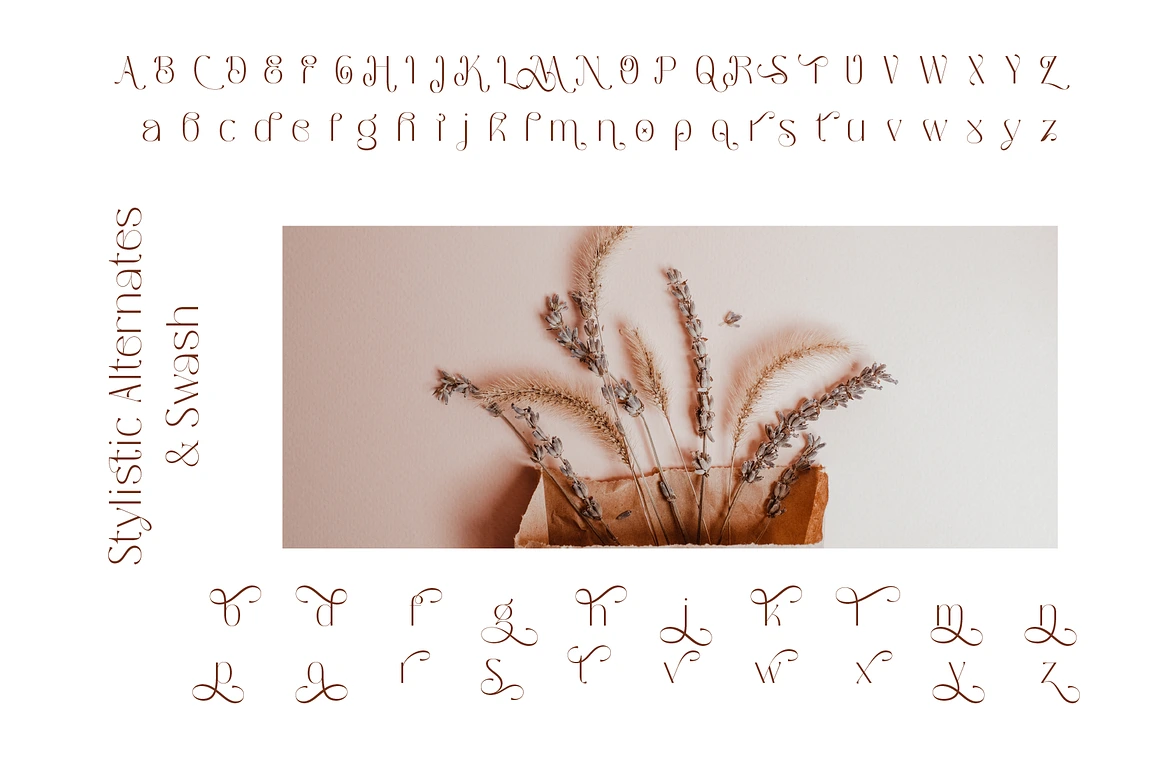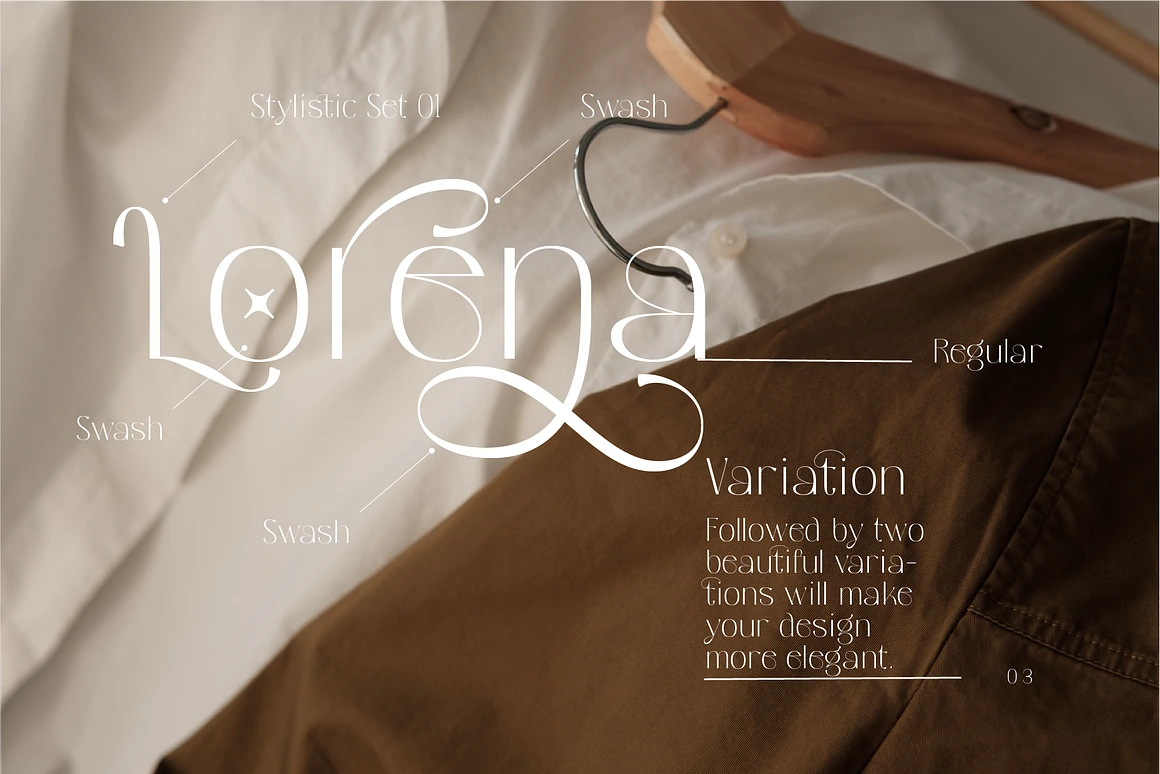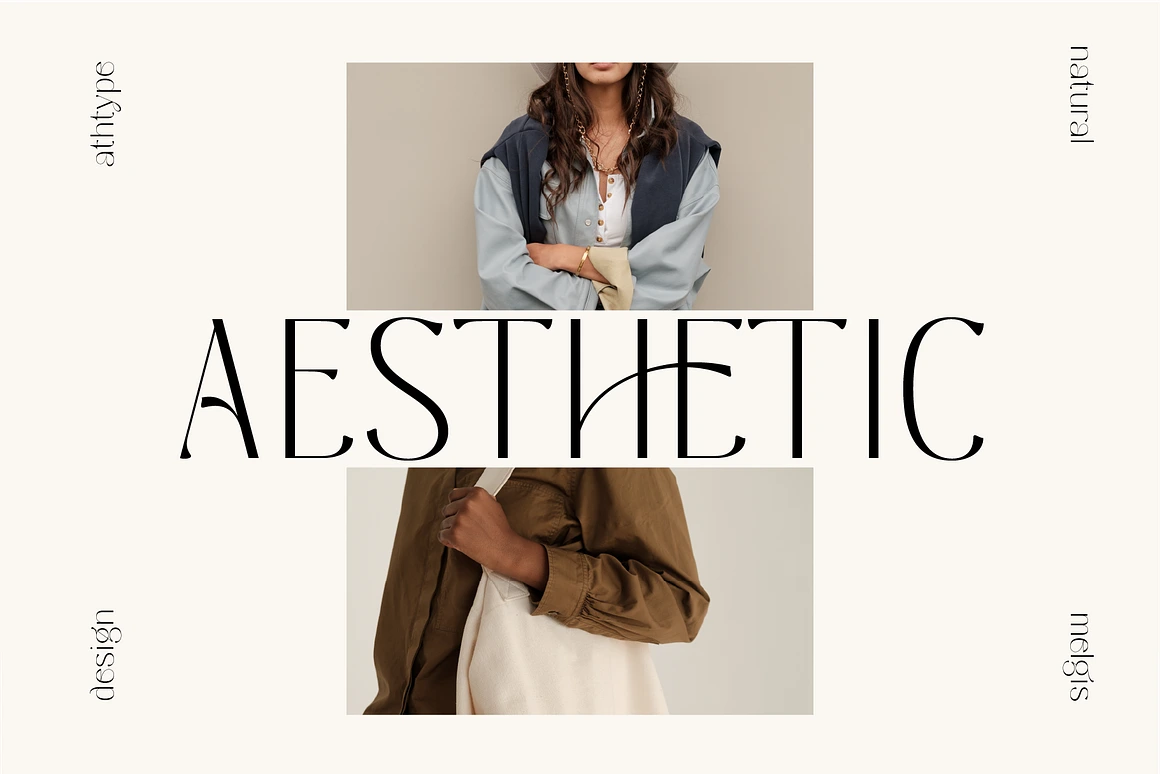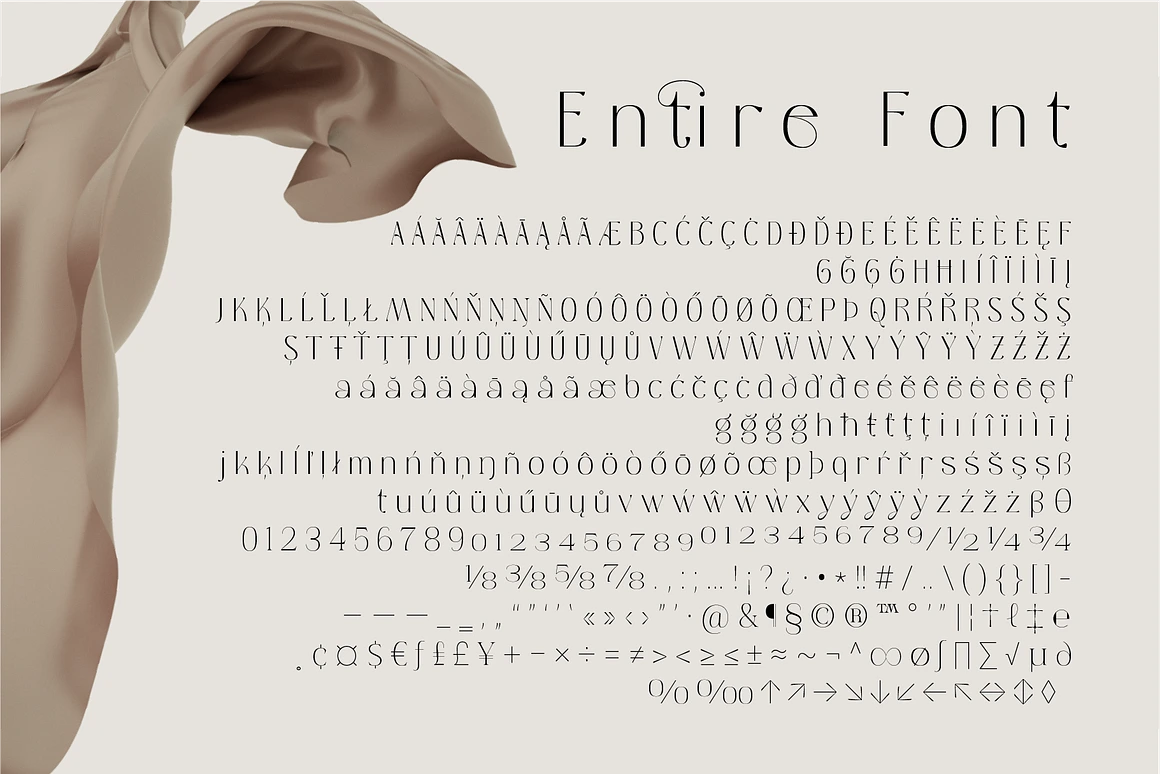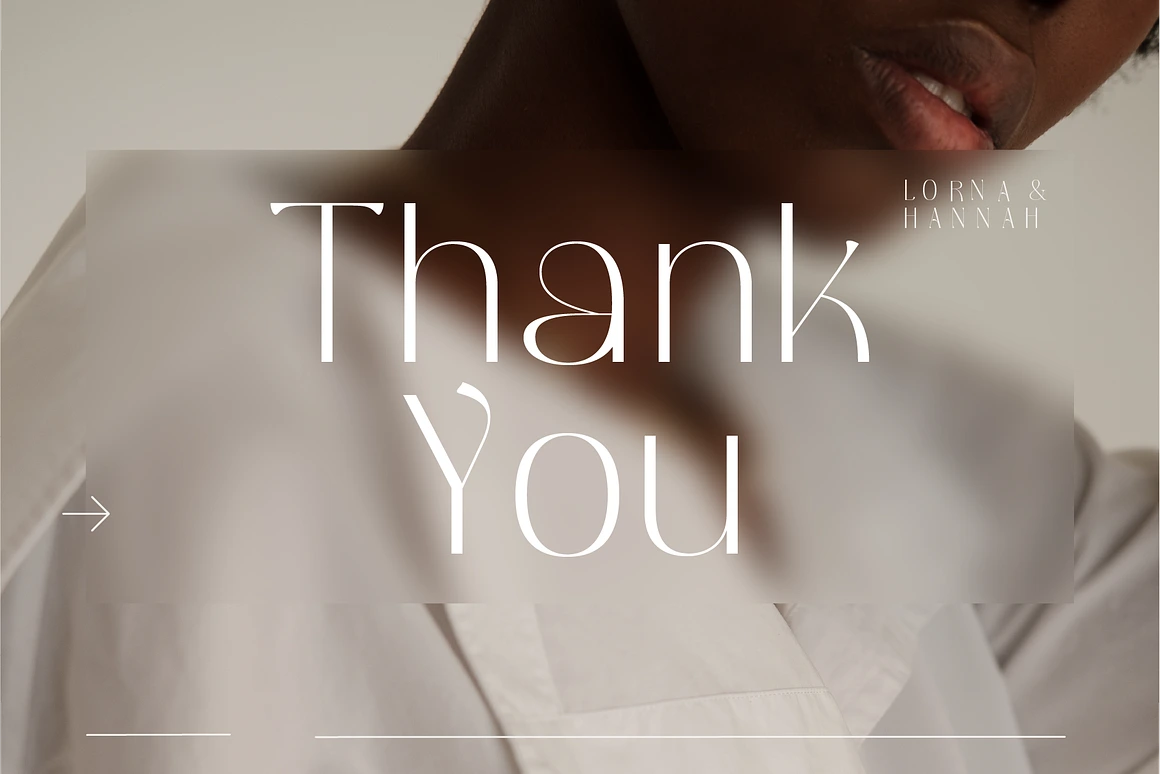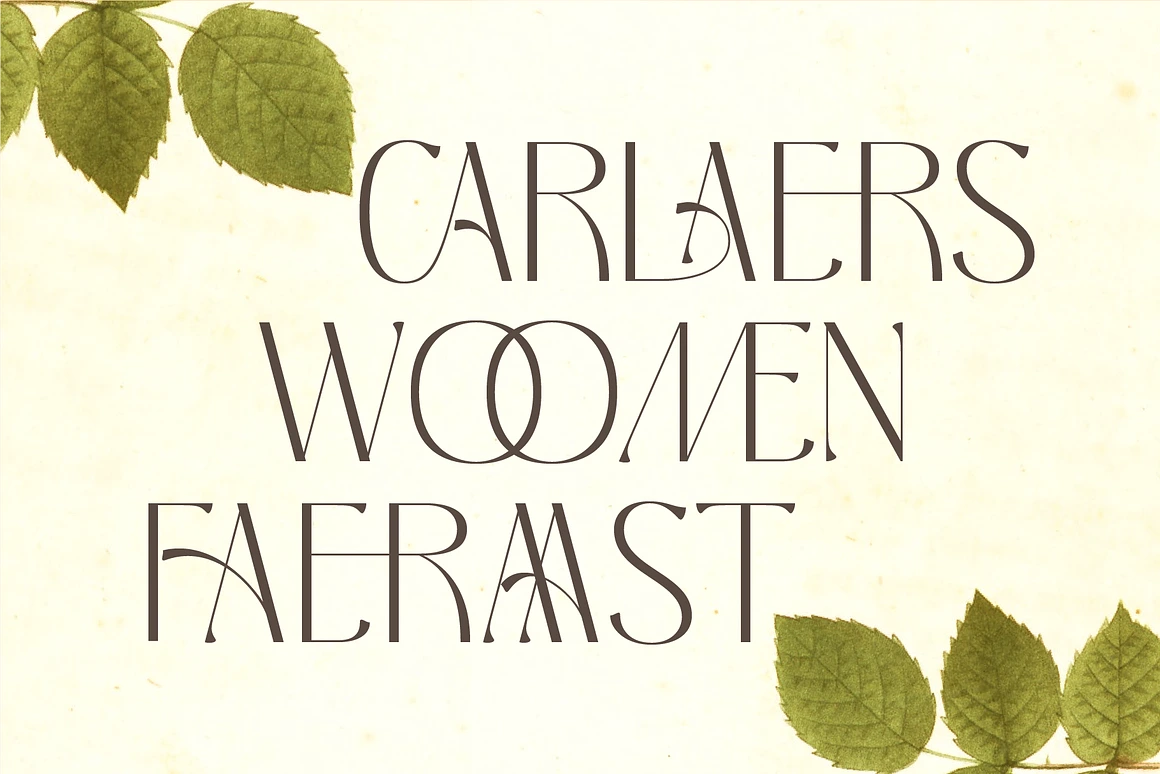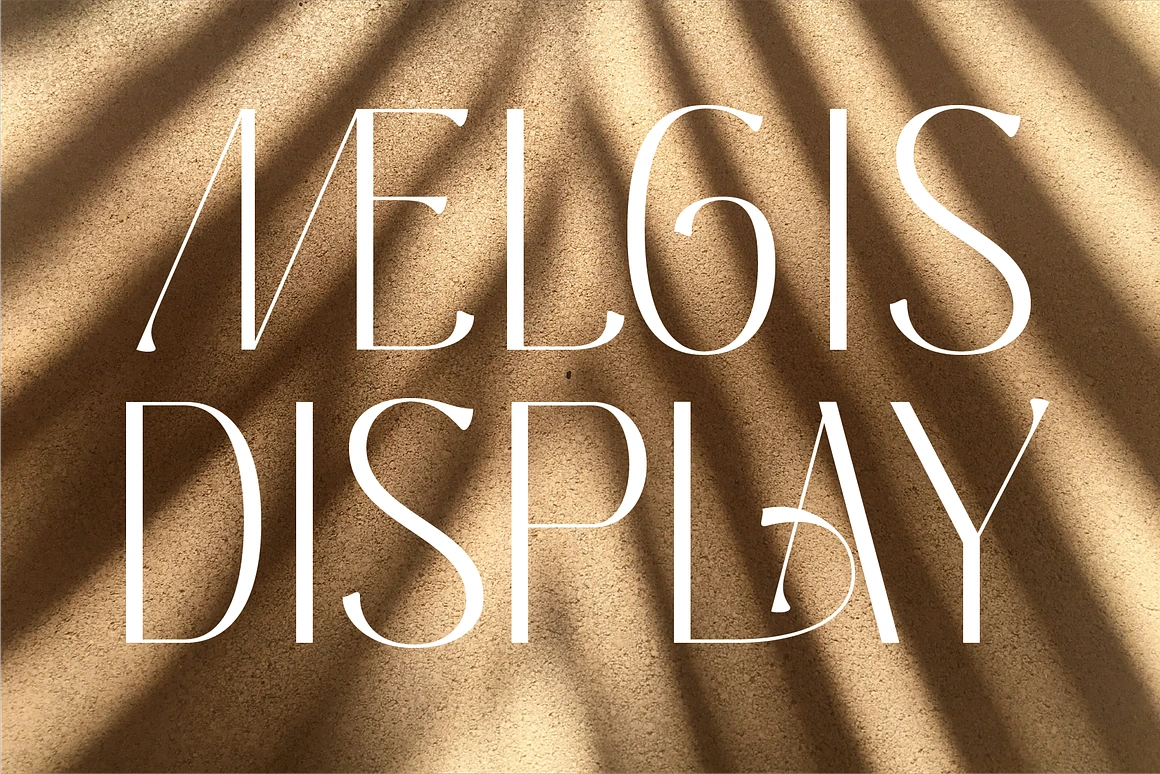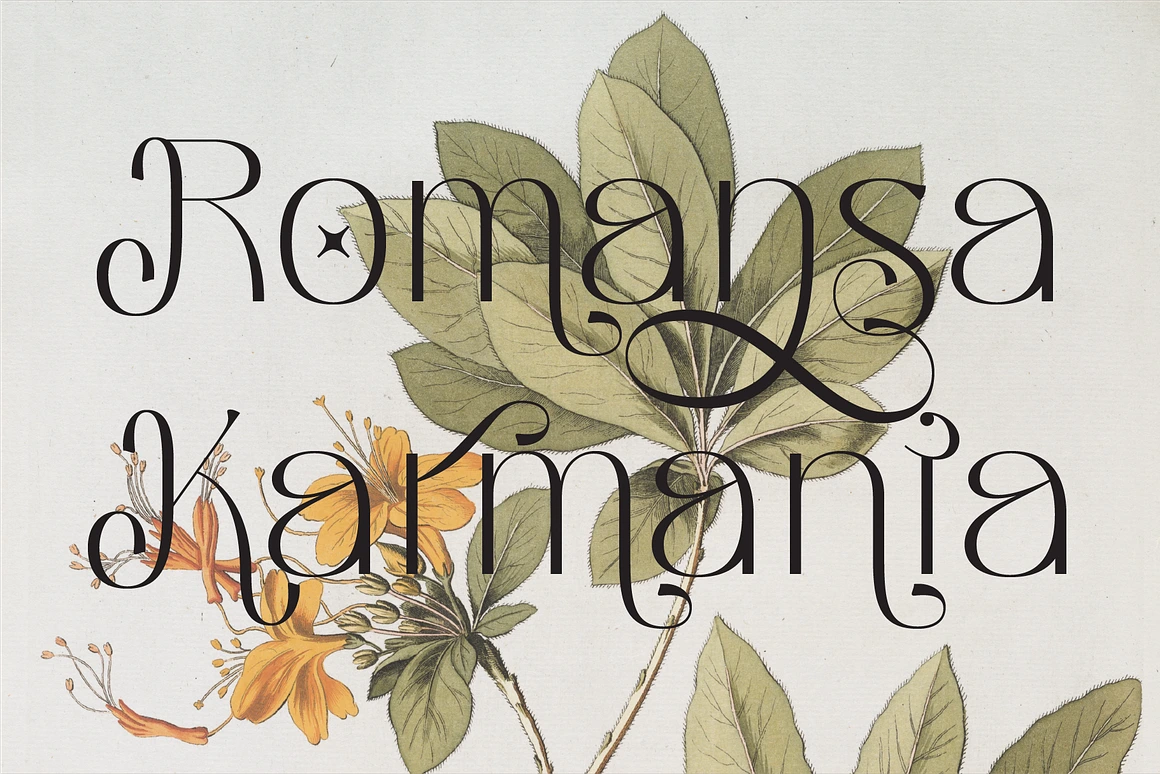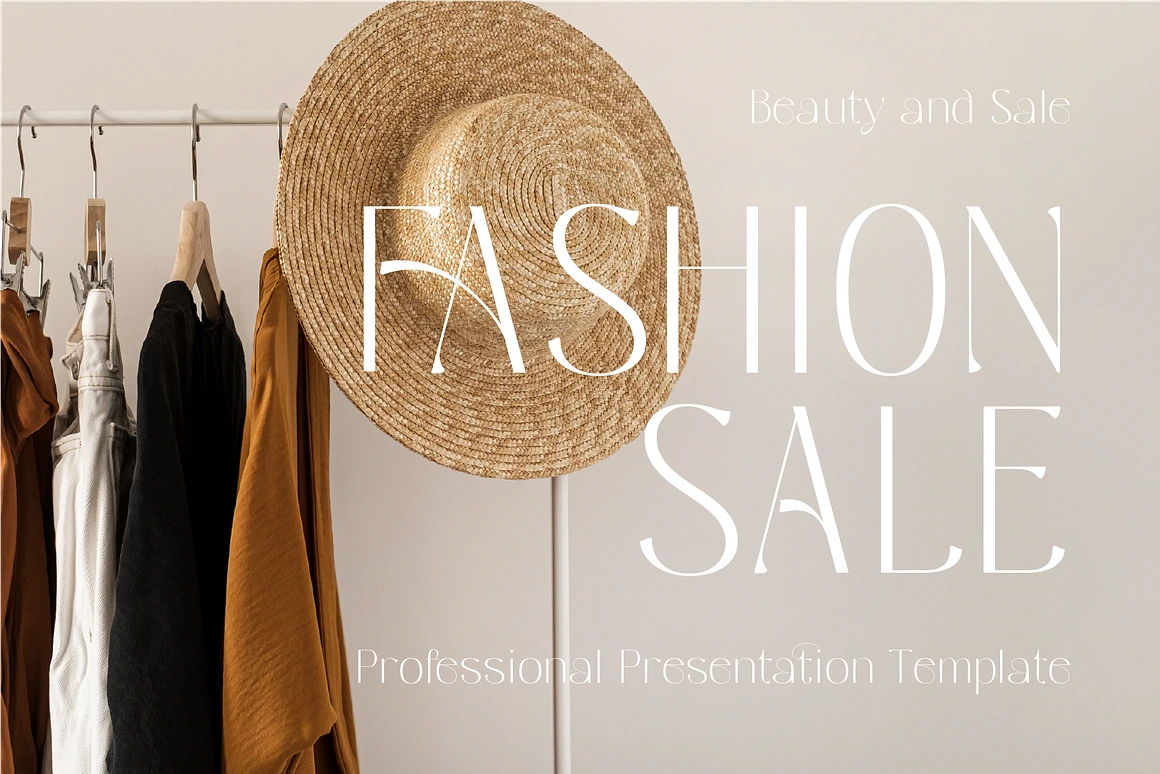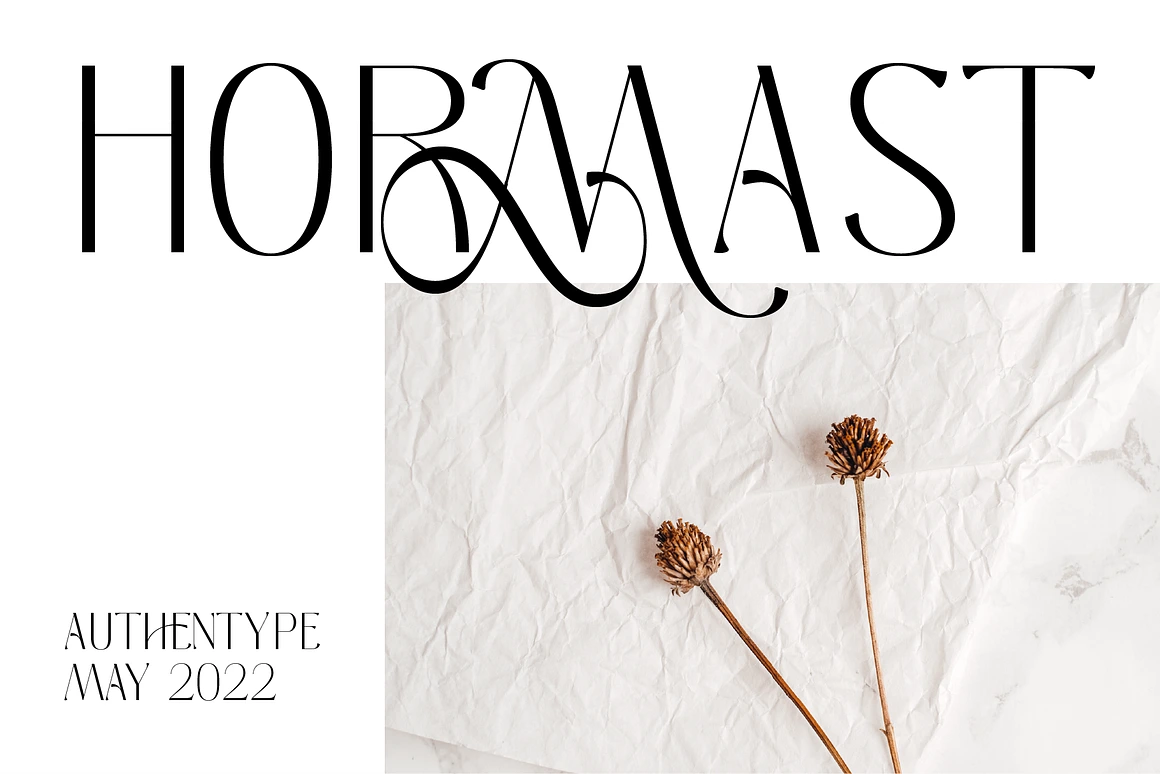
Melgis - Simple and Beauty Font
Melgis is a refined simple and beauty font featuring gracefully curved lines, creating a harmonious balance of beauty and simplicity.
Perfect for beauty brands, editorial layouts, and simple elegant design concepts, Melgis simple and beauty font includes stylish swash glyphs to elevate your creative projects.
Ideal for: Posters, Magazines, Branding, Beauty & Fashion Design.
– OpenType Features for advanced typography